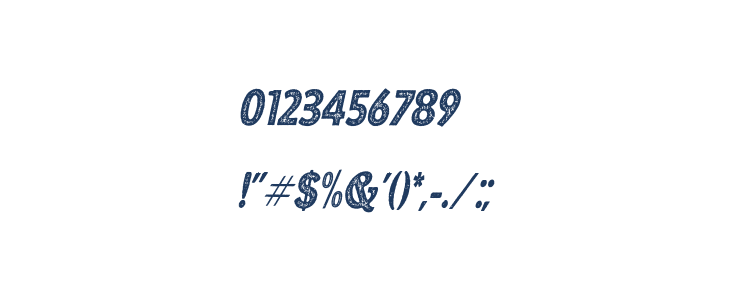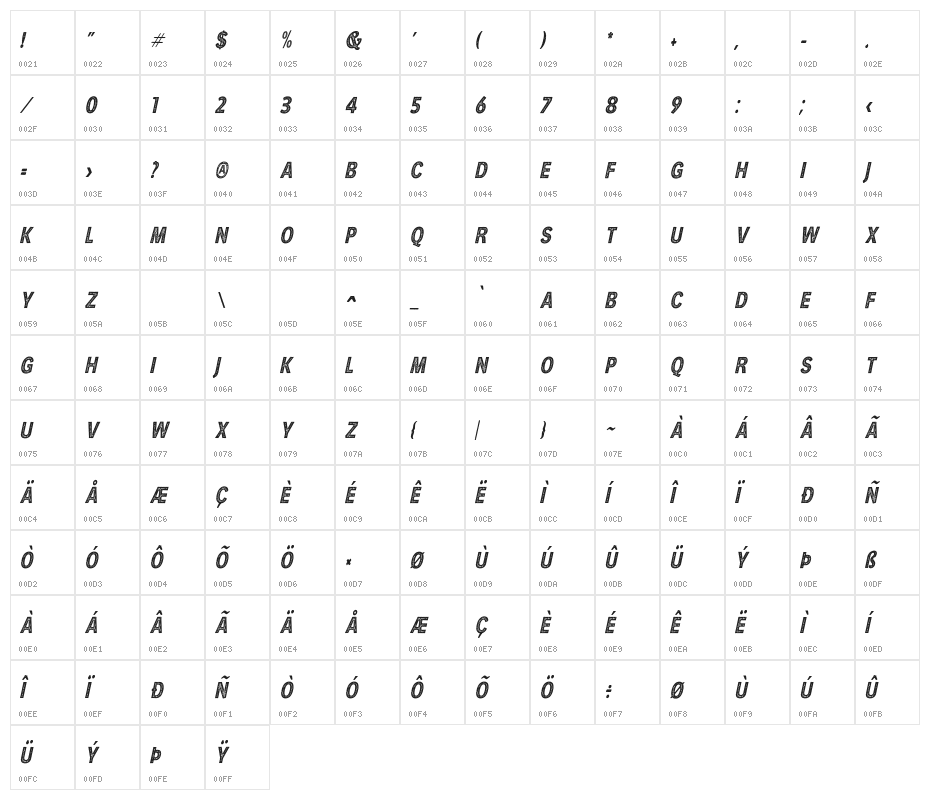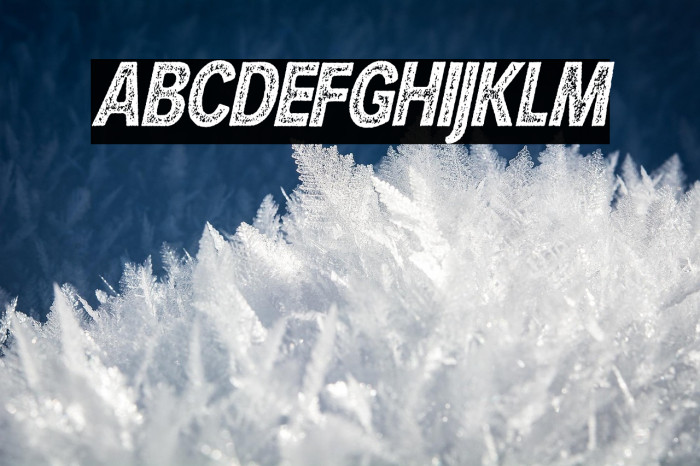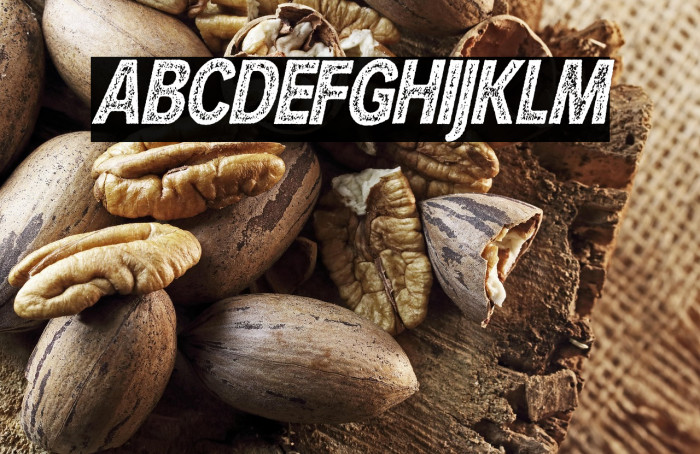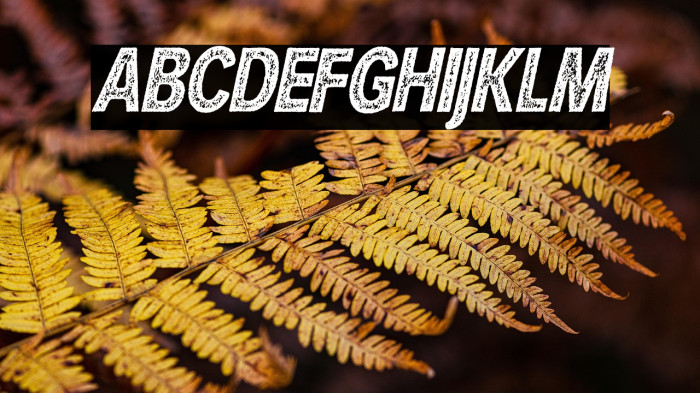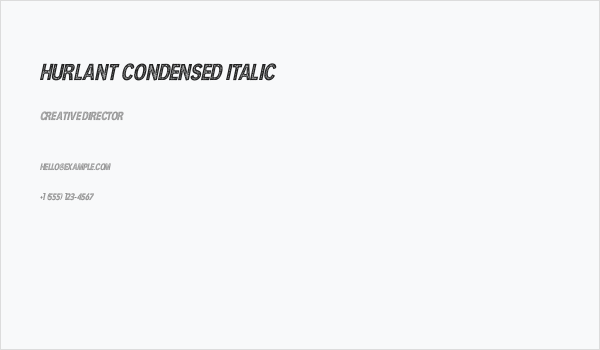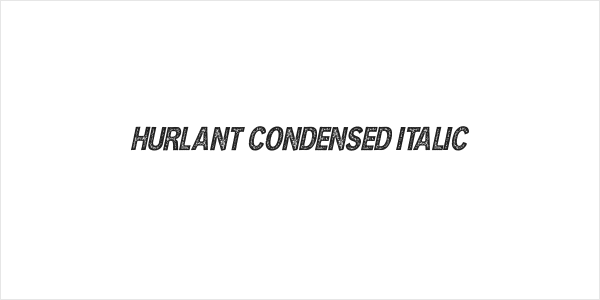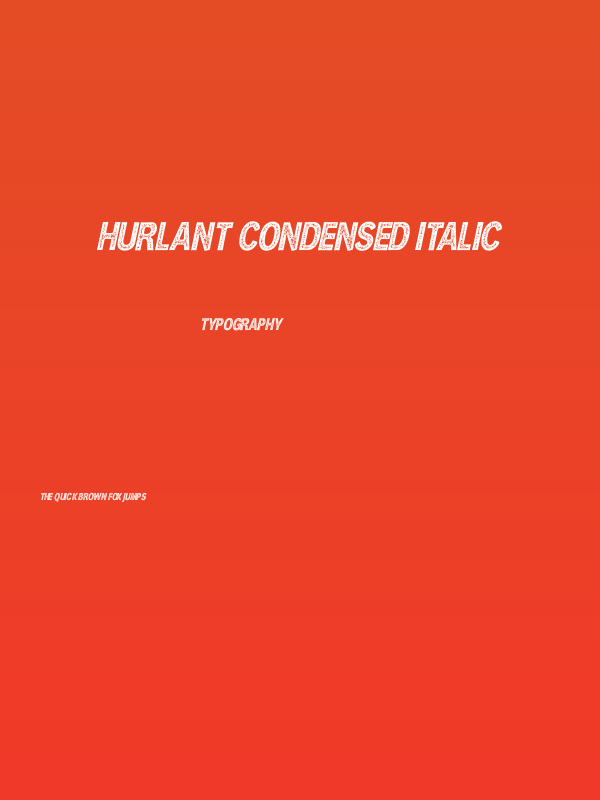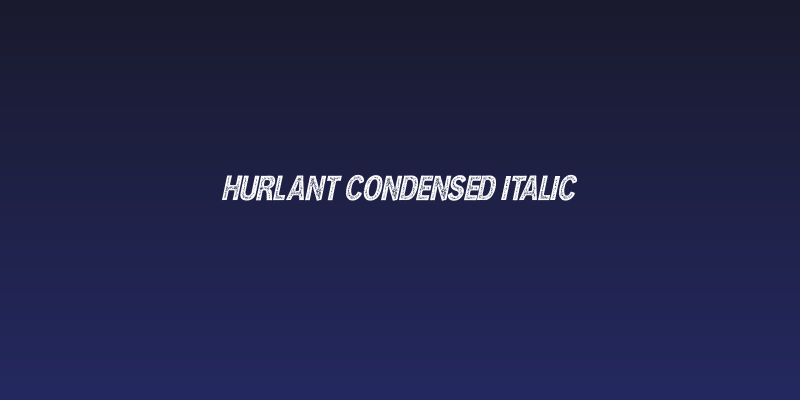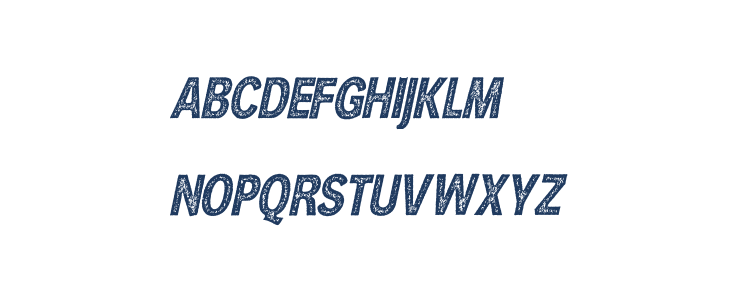
HURLANT CONDENSED ITALIC Font
HURLANT CONDENSED ITALIC Description
This font features a bold, condensed style with a distinct italic slant, giving it a dynamic and energetic appearance. The characters are designed with a textured, distressed effect, adding a rugged and vintage feel. The uppercase and lowercase letters maintain a consistent style, with numerals and special characters following suit. The overall design is eye-catching and suitable for projects that require a strong, impactful visual presence.
| Overall Style | Vintage, Decorative |
| Proposed Projects | Ideal for posters, album covers, branding, and any design needing a bold, vintage aesthetic. |